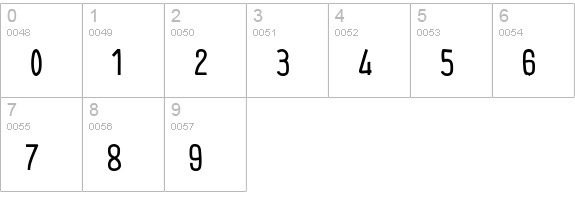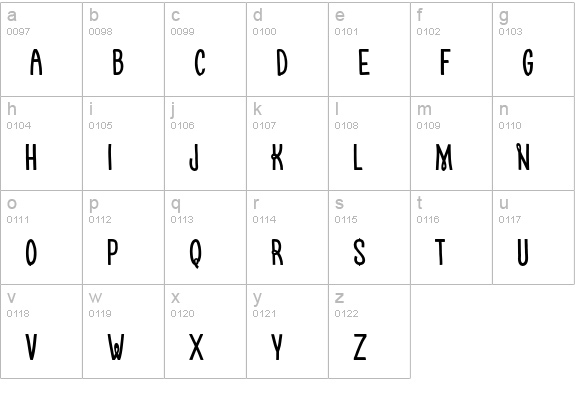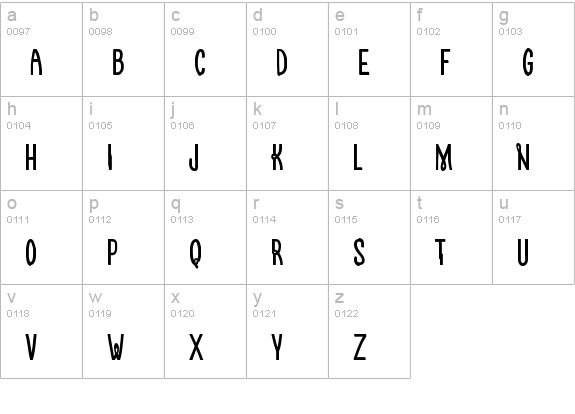
Myosotis Bold Font Details
Myosotis Bold is a strong, high-contrast variant in the Myosotis typeface family \xE2\x80\x94 well suited to headlines, attention-grabbing titles, and strong calls-to-action.
Myosotis Bold is a striking and contemporary font that exudes confidence and elegance. With its bold and clean lines, this typeface is perfect for making a statement in your designs. Whether used for headings, titles, or logos, Myosotis Bold commands attention and adds a touch of sophistication to any project. What makes Myosotis Bold even more appealing is that it is available for free download at FontsMarket.com. This means you can easily access this stunning font and use it in your creative endeavors without any cost. Don't miss out on the opportunity to elevate your designs with Myosotis Bold - download it now and unleash your creativity!